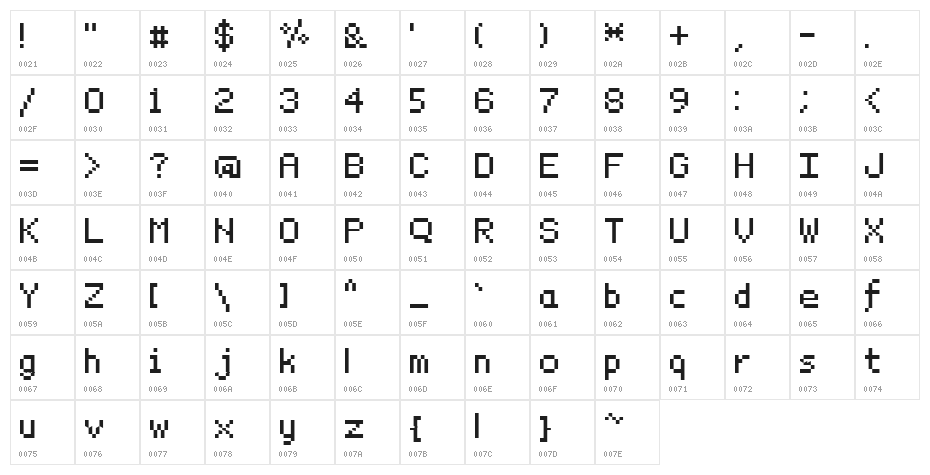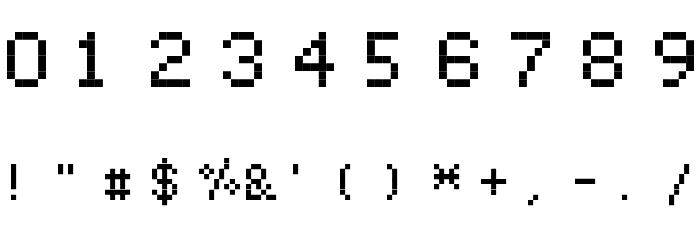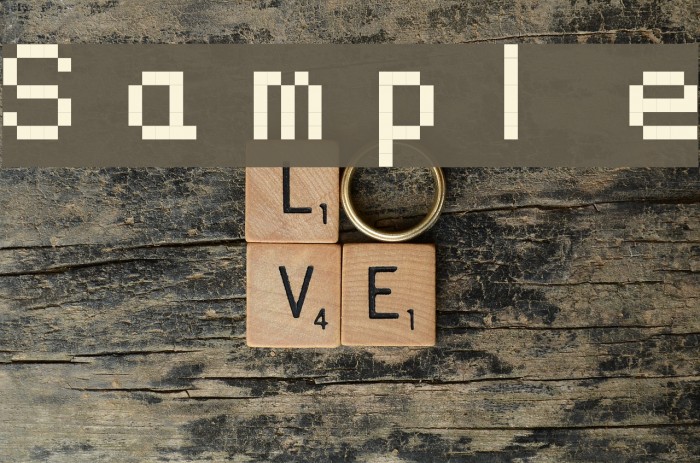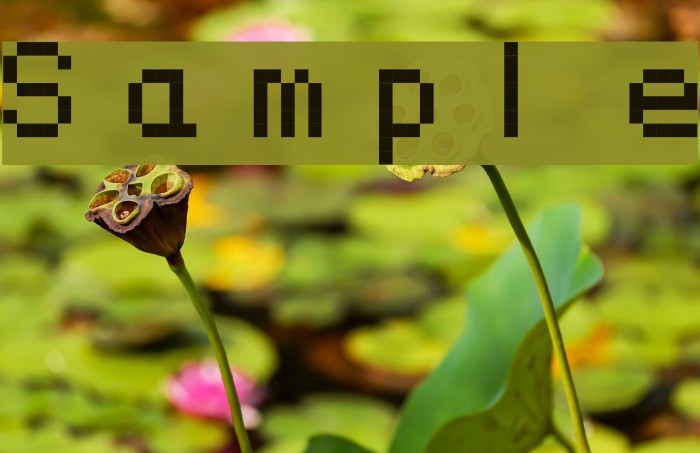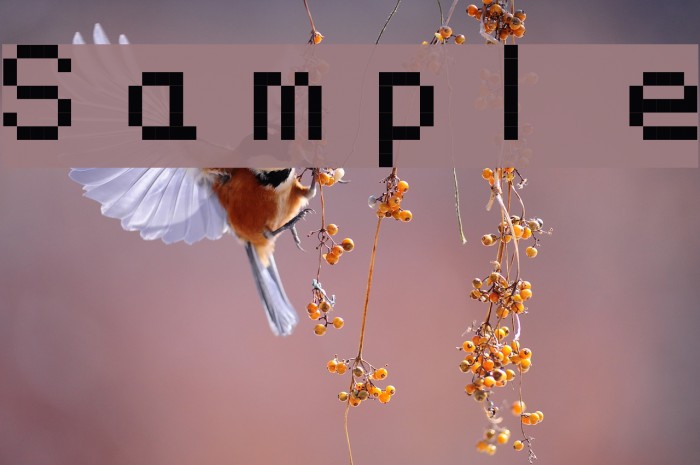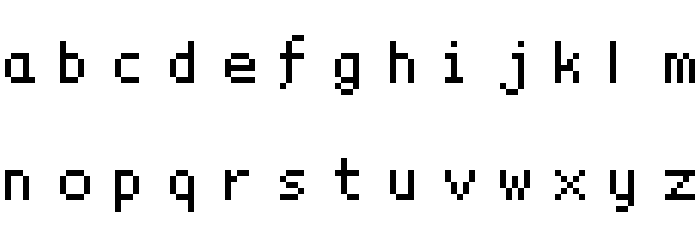
Sample Font
Sample Description
This font is a pixelated, monospaced typeface reminiscent of early digital displays and retro video games. Each character is constructed with a grid-like precision, giving it a blocky, geometric appearance. The uniformity in character width and height ensures a consistent and orderly look, ideal for digital interfaces or designs that aim to evoke a sense of nostalgia. The uppercase and lowercase letters maintain a similar structure, with slight variations to distinguish them. Numbers and special characters are crafted with the same pixelated style, ensuring visual harmony across all elements.
| Use Case | Digital displays, Coding interfaces, Retro games |
| Proposed Projects | Ideal for retro-themed video games, digital art projects, coding interfaces, or any design requiring a nostalgic digital feel. |